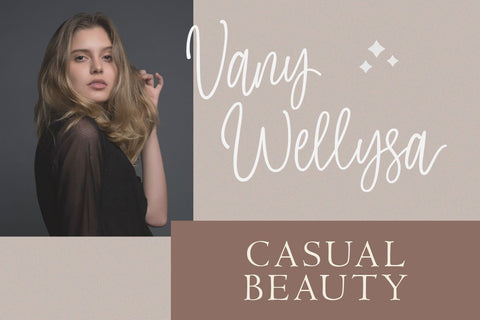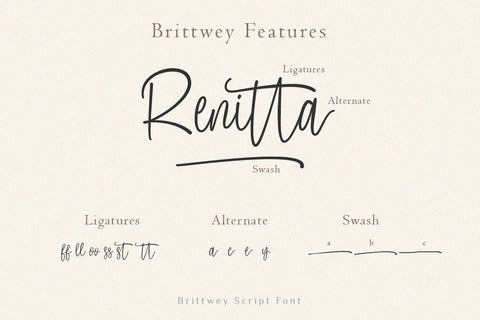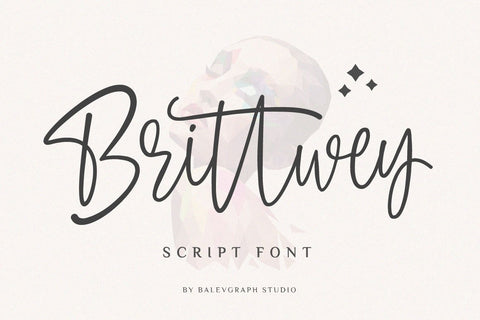
Brittwey - Handwritten Script Font
Brittwey is a lovely and delicate script font that exudes elegance and class. This font was particularly crafted for those who need a beautiful and refreshing look to their designs
- Numbers & Punctuation
- Ligature, Alternate & Swashes